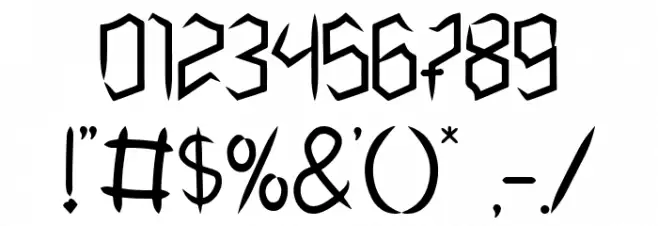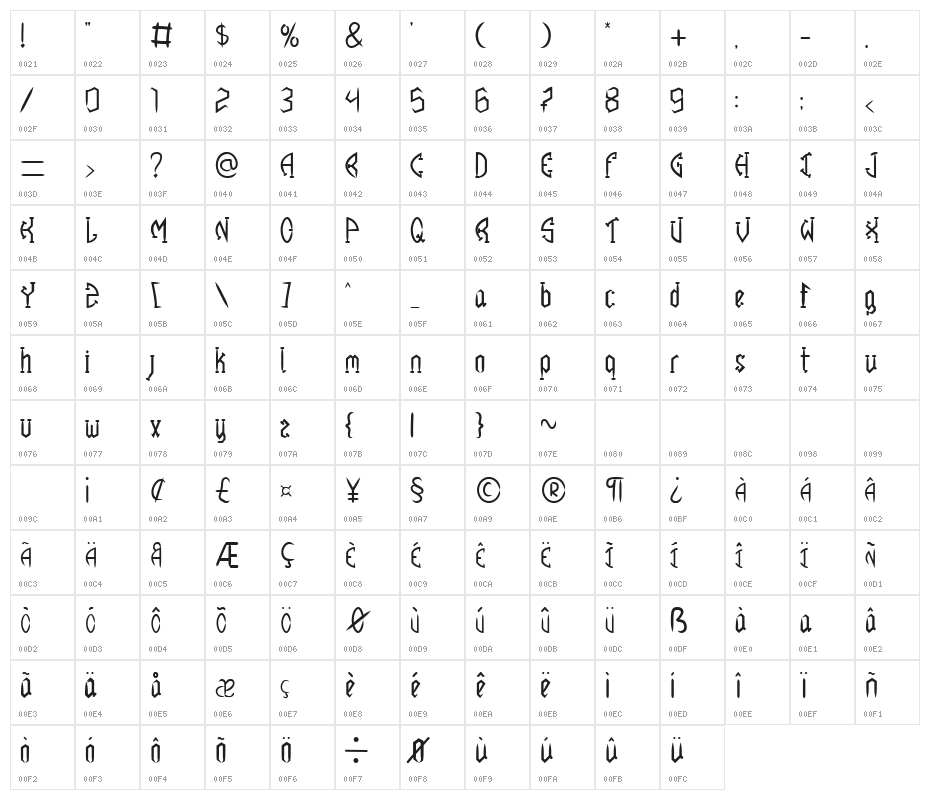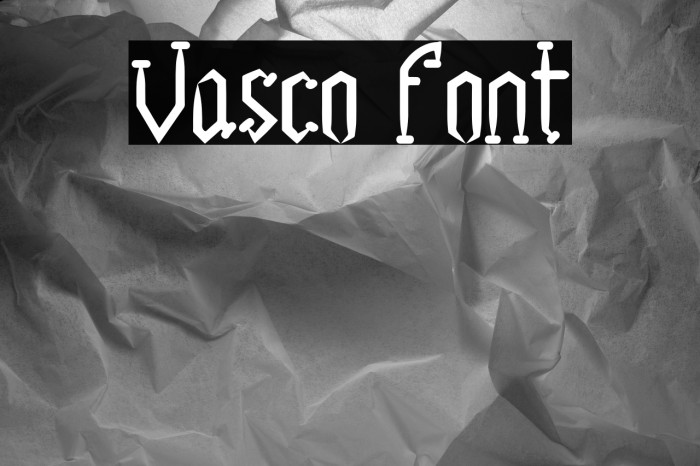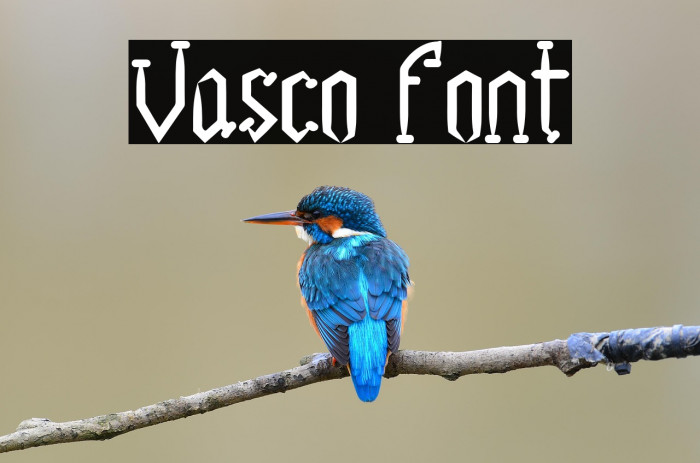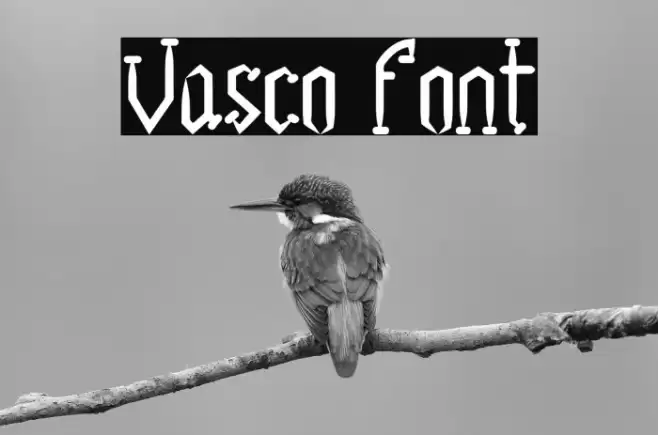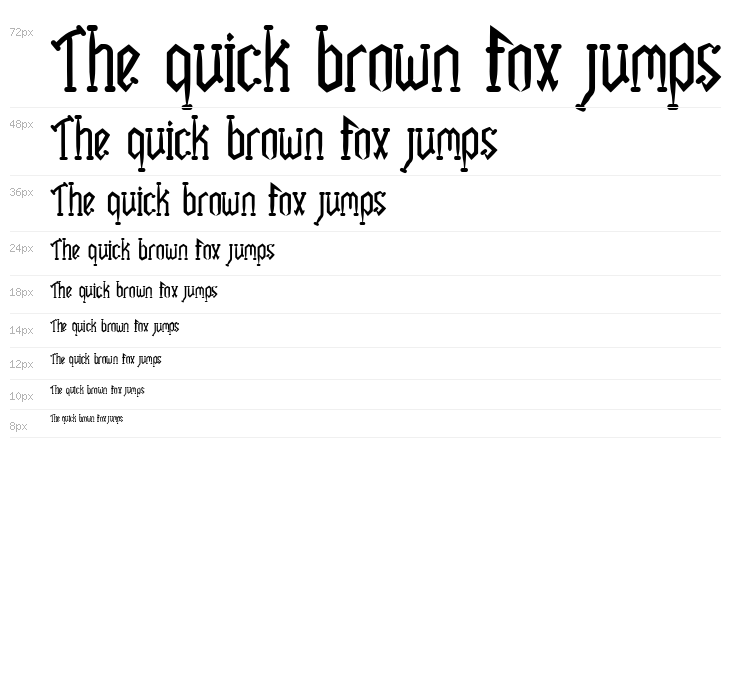
Vasco Font
Vasco Description
This font features a unique and bold design with sharp, angular lines and pointed serifs that give it a distinct, edgy appearance. The characters are crafted with a high level of detail, incorporating geometric shapes and a sense of symmetry that adds to its striking visual impact. The uppercase letters are particularly prominent, with a strong presence that commands attention. The lowercase letters maintain the same angular style, ensuring consistency throughout the typeface. Numbers and special characters are designed to match the overall aesthetic, making this font versatile for various uses.